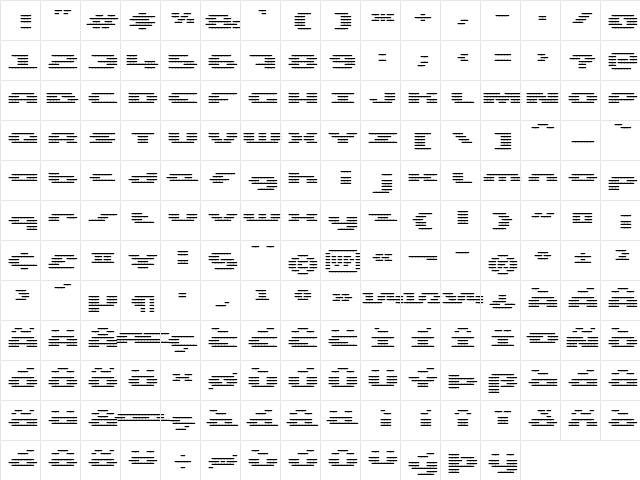
UP Tiny lcd four 8 decoH Light Font Preview
UP Tiny lcd four 8 decoH Light
UP Tiny lcd four 8 decoH Light Font Details
| Foundry | UrbanPixel |
| Designer | Michel Troy - from Montreal |
Design Context for UP Tiny lcd four 8 decoH Typeface
UP Tiny lcd four 8 decoH takes a measured approach to typography — its balanced proportions and neutral character make it a reliable workhorse for both digital and print work. The delicate stroke weight brings airiness and refinement to layouts.